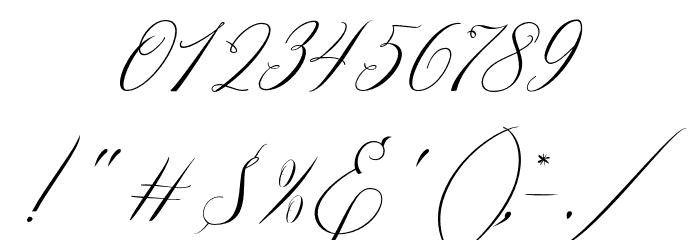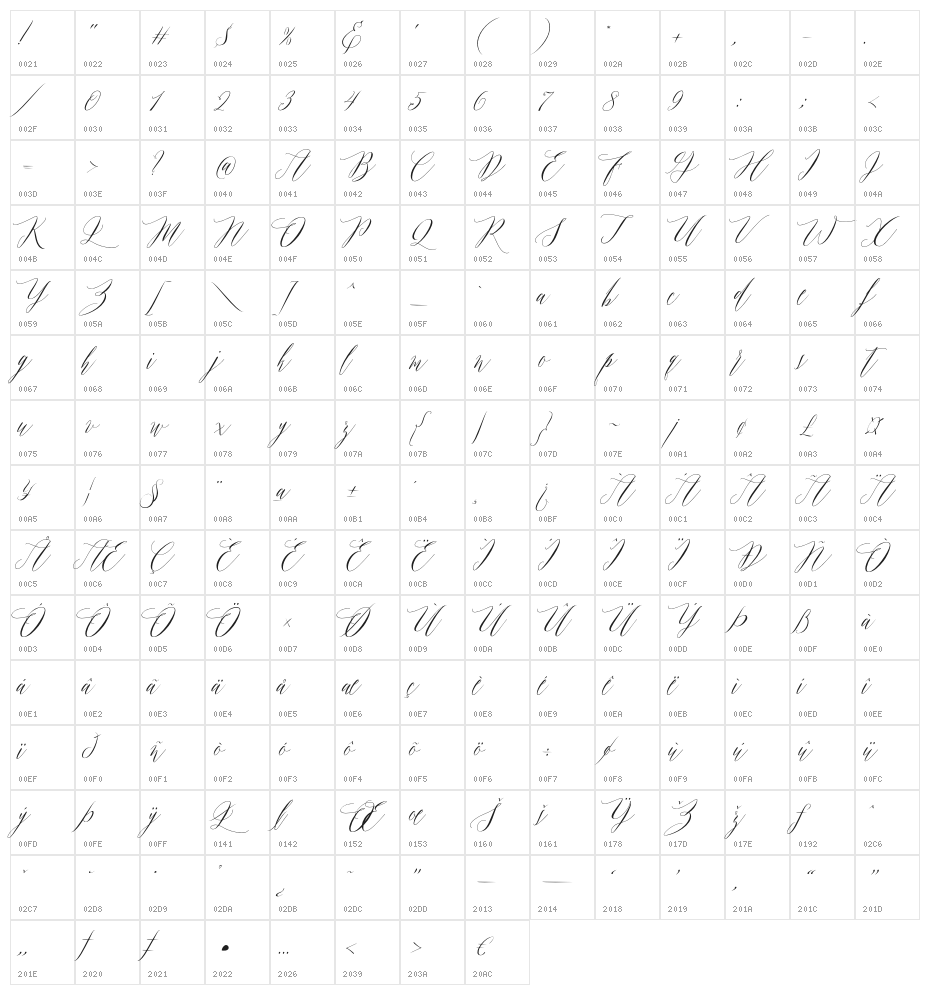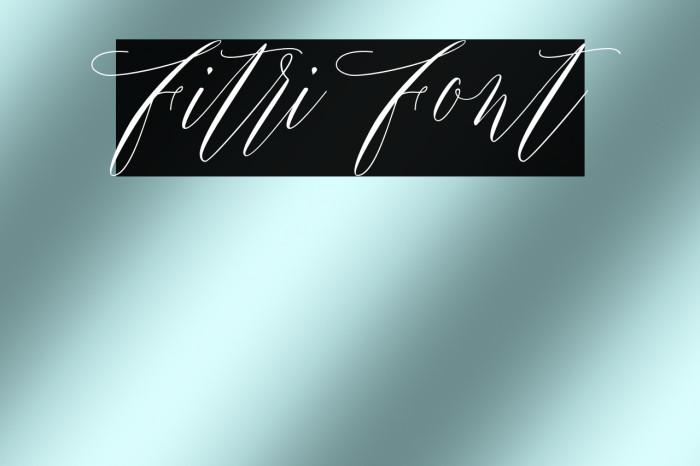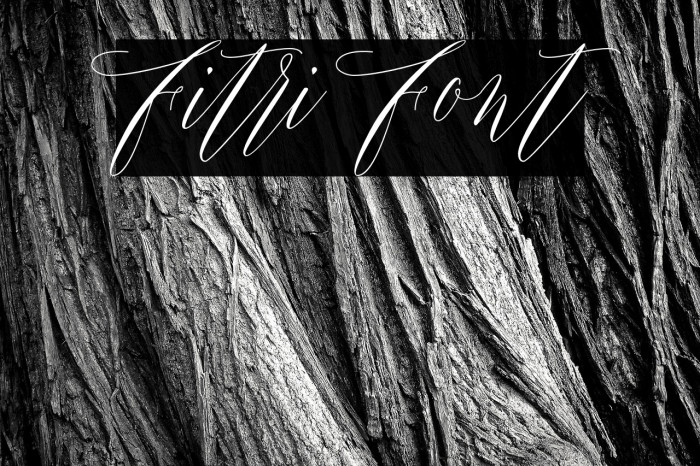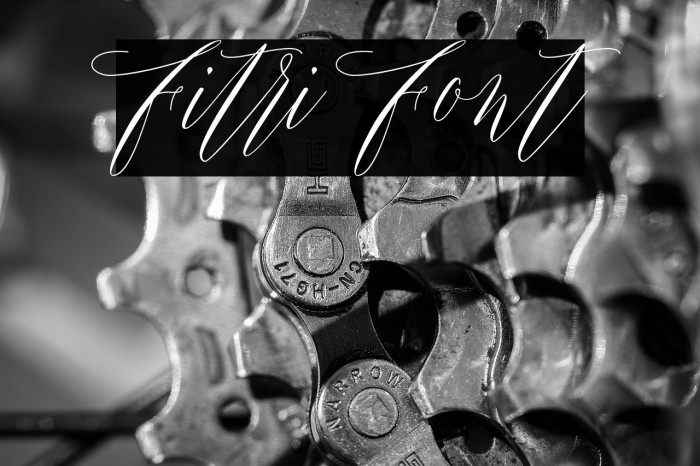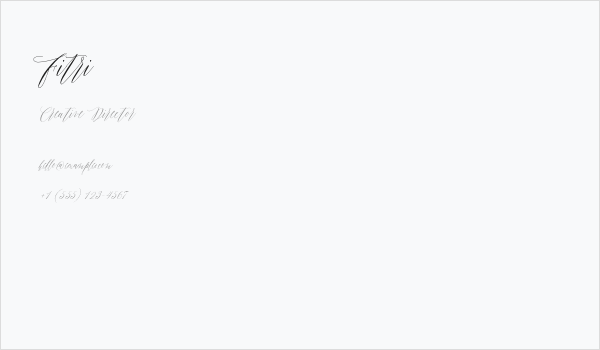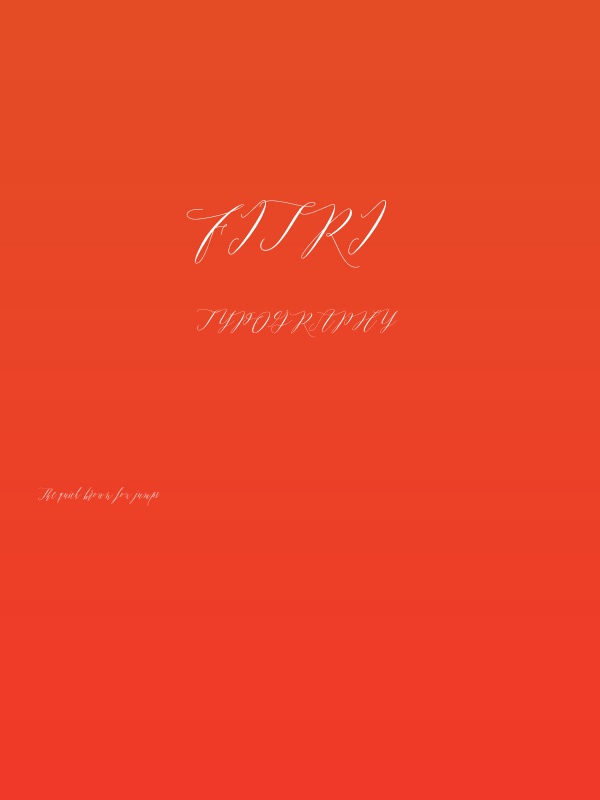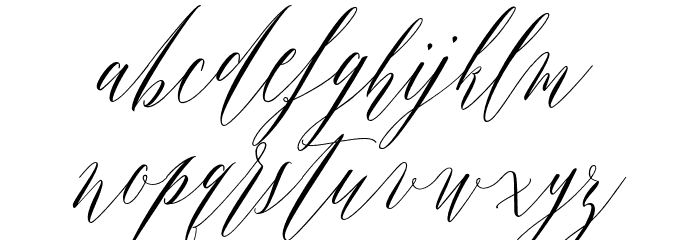
Fitri Font
Fitri Description
This elegant script font features fluid, interconnected strokes that create a sense of movement and grace. The uppercase letters are characterized by sweeping curves and loops, while the lowercase letters maintain a consistent flow with delicate ascenders and descenders. The numerals and special characters are designed with the same attention to detail, ensuring a cohesive look across all glyphs. The font's high contrast between thick and thin strokes adds to its sophisticated appearance, making it ideal for formal invitations, branding, and decorative purposes.
| Use Case | Headlines, Invitations, Branding |
| Proposed Projects | Ideal for wedding invitations, luxury branding, elegant stationery, and decorative headlines. |